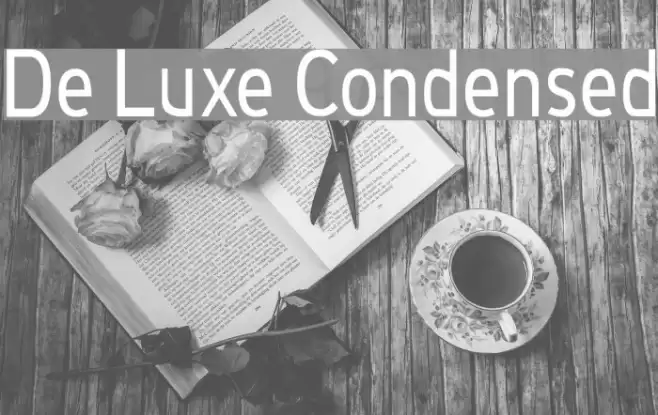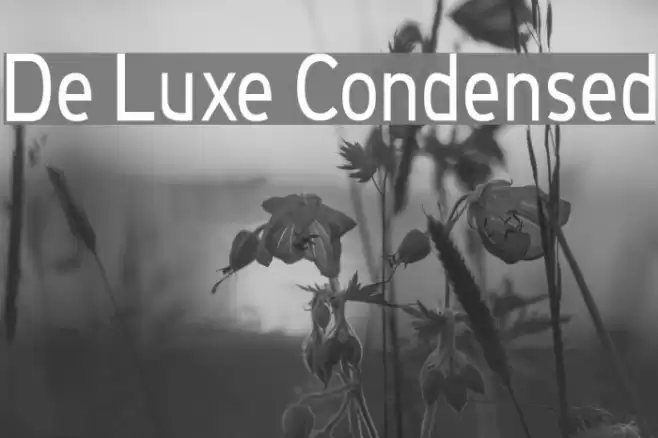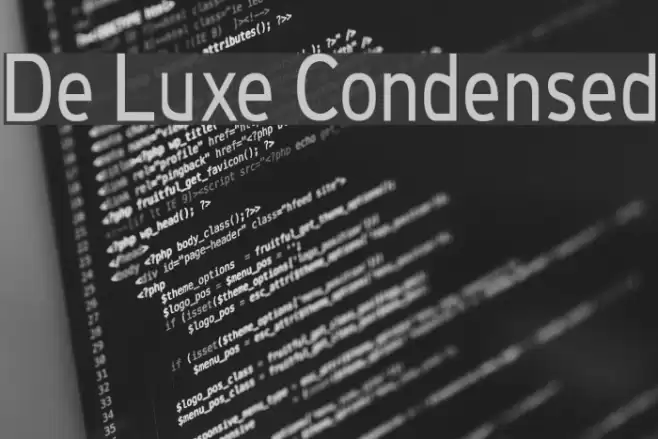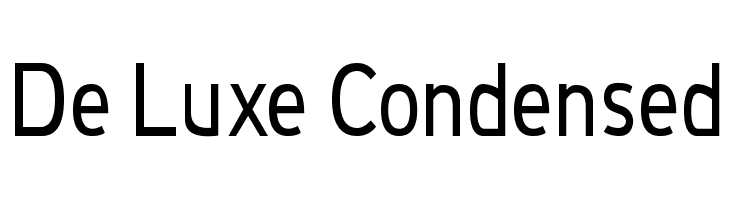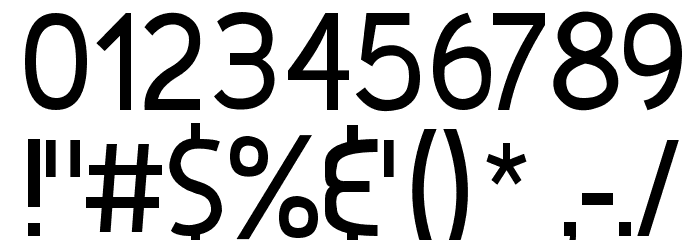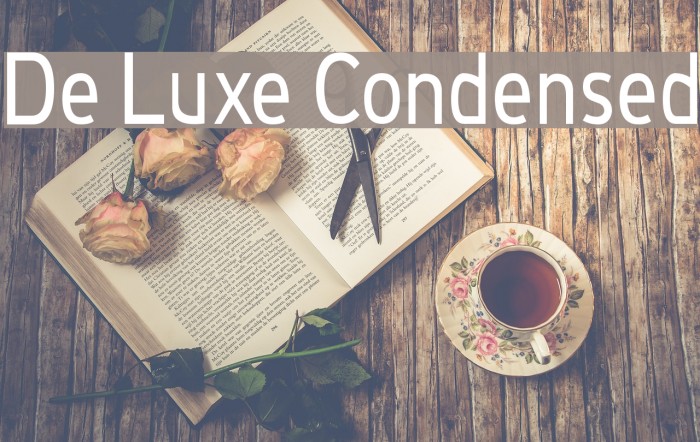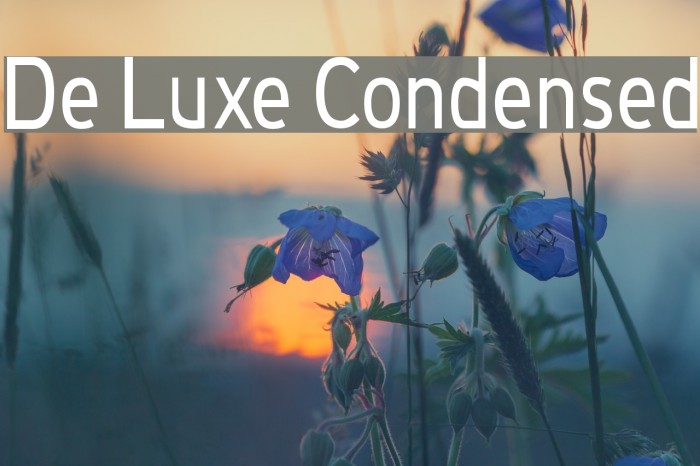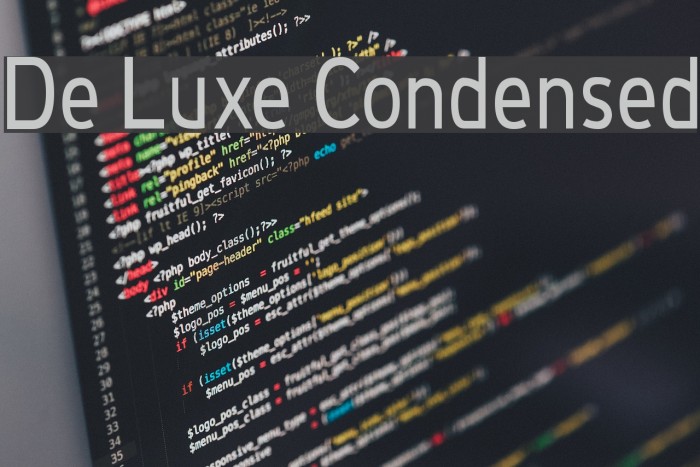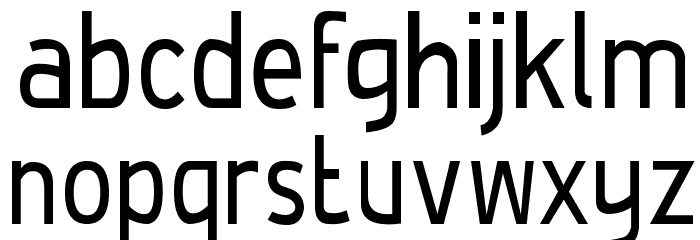
De Luxe Condensed Font
De Luxe Condensed Description
This font features a clean, modern design with a condensed structure, making it ideal for space-saving applications. The characters are uniformly proportioned, with a consistent stroke width that offers a sleek and professional appearance. The uppercase and lowercase letters are well-balanced, and the numerals are clear and easy to read. Special characters are included, maintaining the font's cohesive style. Its simplicity and readability make it versatile for various design needs.
A modern, condensed font with a clean and professional appearance.
- Proposed Projects: Ideal for branding, advertising, headlines, and editorial design where space is limited.
- Category: Sans-Serif
- Use Case: Headlines, Logos, Editorial Design